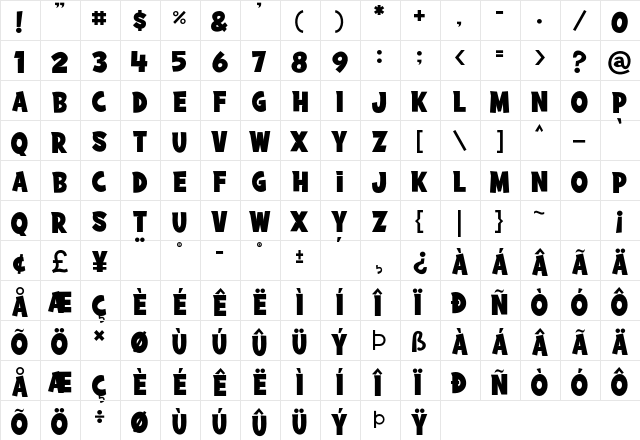
DRAGON KIDS BROKE Regular
DRAGON KIDS BROKE trades formality for fun, with bouncy, characterful letterforms that bring warmth and energy to any project.
Font Pairing: Pairs well with a rounded or humanist sans for body copy, maintaining the friendly tone without relying on DRAGON KIDS BROKE to carry extended reading.
Pro Tip: Use DRAGON KIDS BROKE at larger display sizes where its expressive character can land. Pair with a clean, simple sans for body copy to maintain readability.